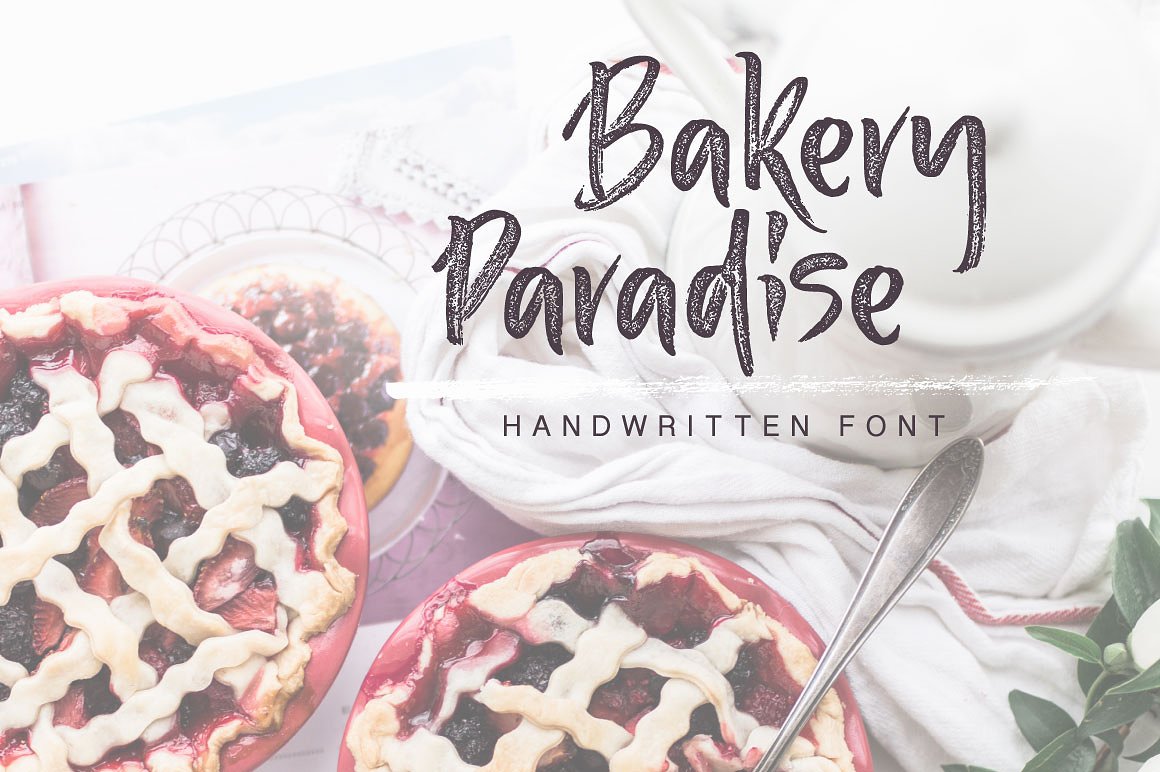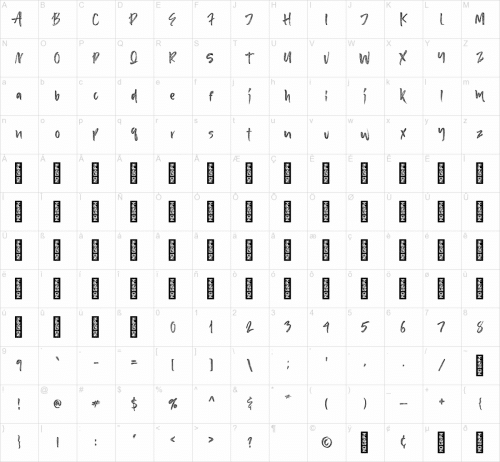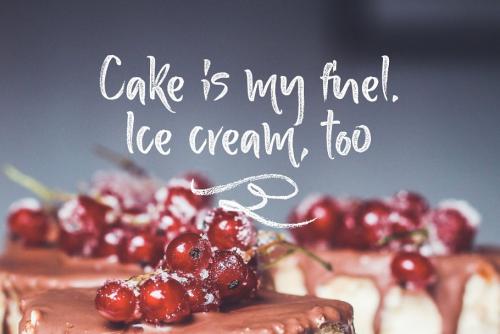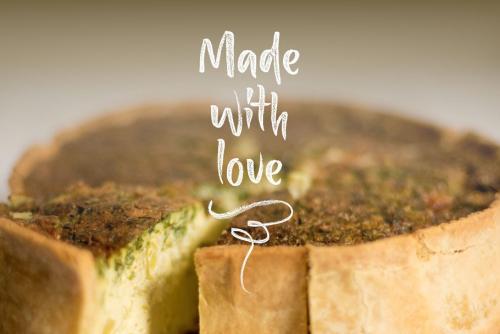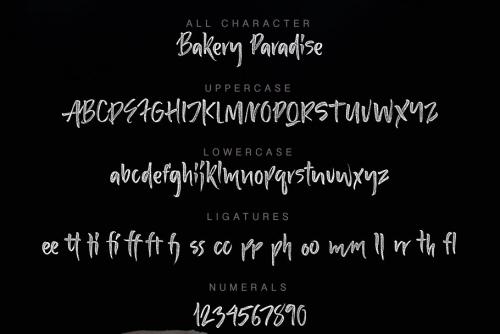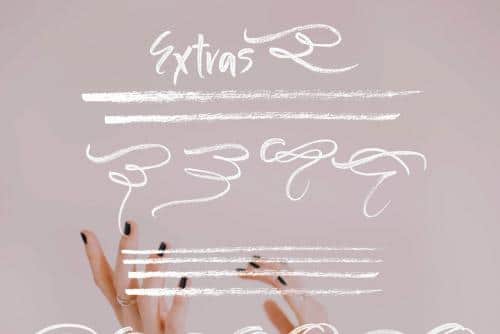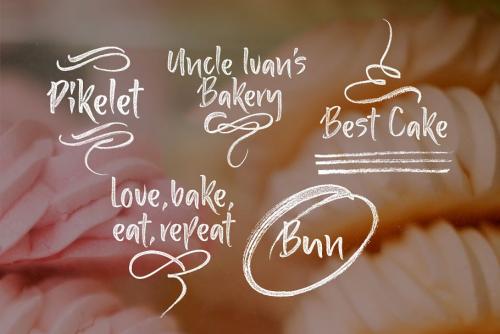
Bakery Paradise Handwritten Font
Bakery Paradise Handwritten Font is a bright lovely modern calligraphy typefaces with rich texture. It is good for short texts, headlines and for creating logotypes.
Also you’ll receive a set of flourish which helps you create logo with bright unique character.
• Designer: Vera Holera